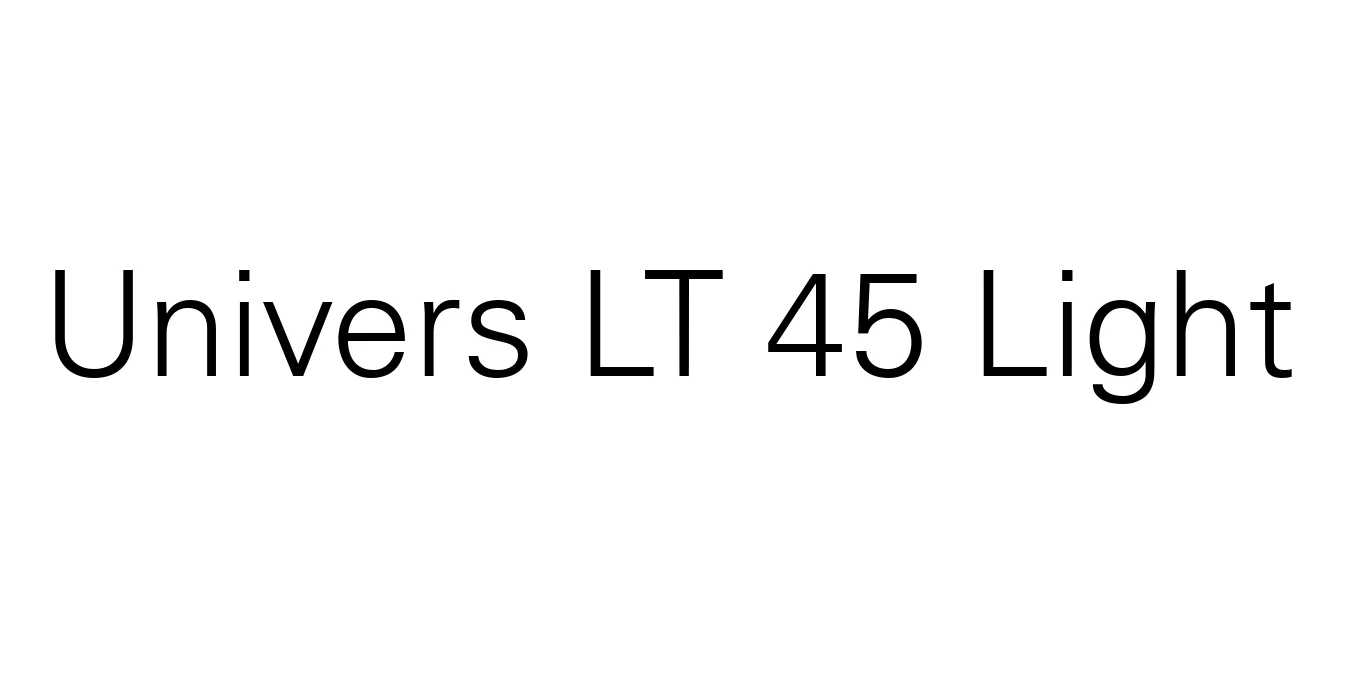
Univers LT 45 Light
Designed by Adrian Frutiger
| Category | Sans-serif |
| Designer | Adrian Frutiger |
| Similar Fonts | Helvetica, Akzidenz-Grotesk, Frutiger, Folio |
Univers LT 45 Light is a foundational piece of the modernist typographic movement, designed by the legendary Adrian Frutiger in 1954 and officially released in 1957. It was a revolutionary release because it was the first typeface family conceived as a fully integrated, systematic grid. The numerical designation '45' represents its place within the Frutiger matrix, where the first digit signifies the weight (Light) and the second digit indicates the width and posture (Roman).
This specific variant is characterized by its geometric discipline and neutral, objective appearance. Its light stroke weights and generous counters provide exceptional legibility and a sophisticated, airy feel in print and digital layouts. Over the decades, Univers LT 45 Light has become a global benchmark for signage, corporate identities, and architectural documentation, favored by designers who prioritize clarity and structural integrity over decorative flair.
Univers LT 45 Light Best Uses
Ideal for creating professional, neutral logos and high-end brand identity systems.
Excellent for wayfinding and public transport information due to its high legibility.
Perfect for clean body text in magazines, annual reports, and architectural books.
Suitable for minimalist user interfaces that require a structured and uncluttered look.